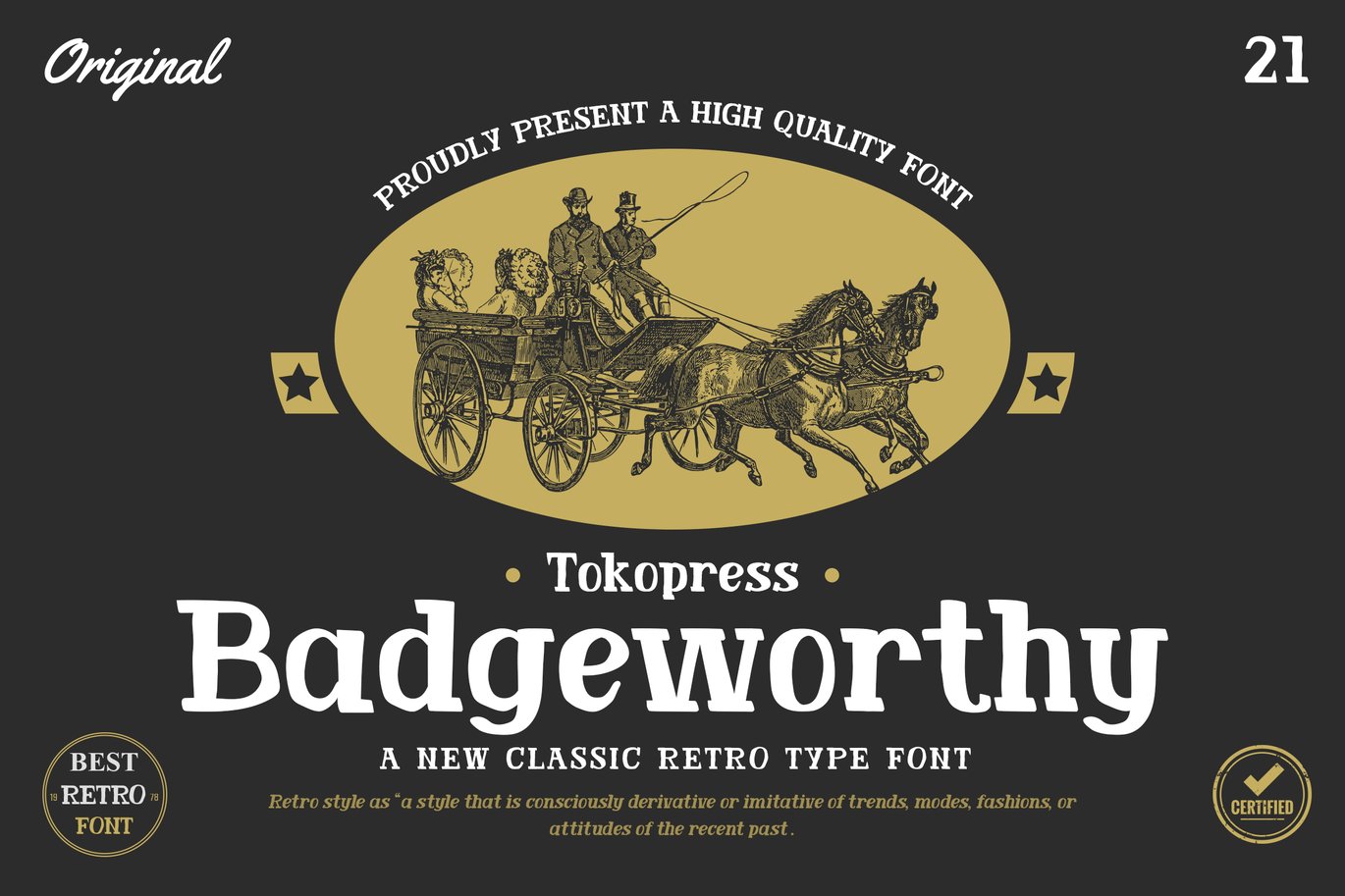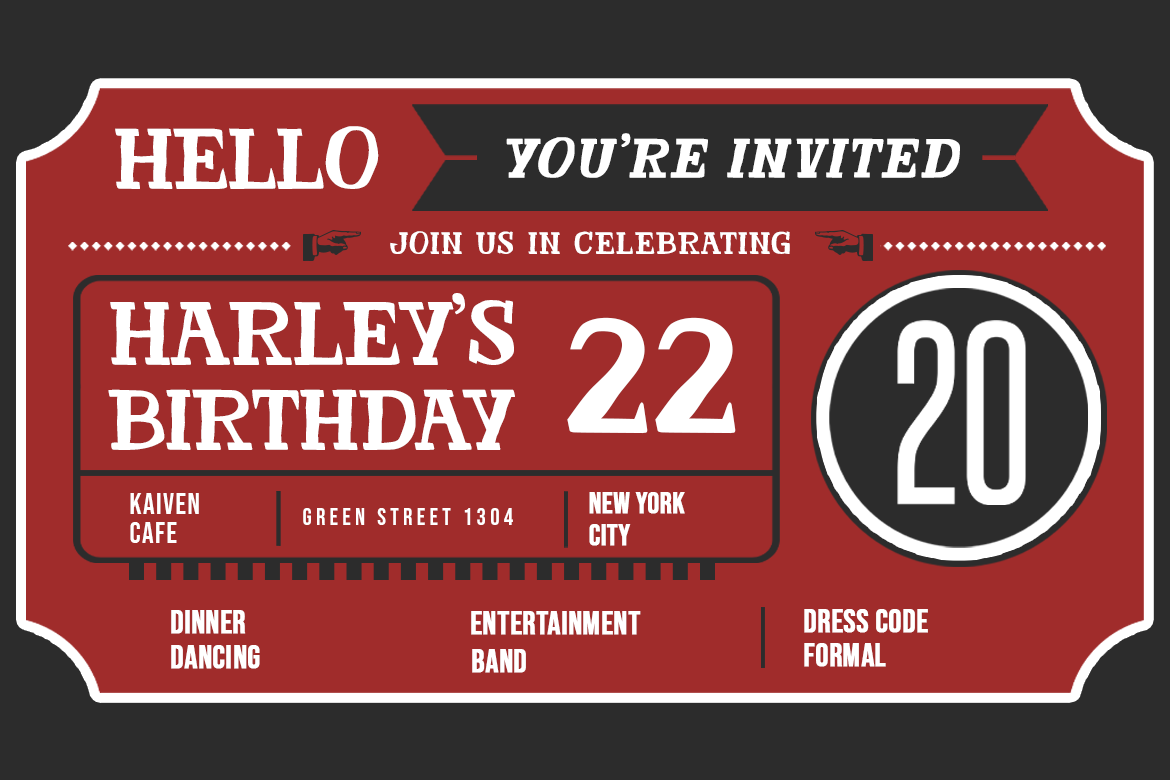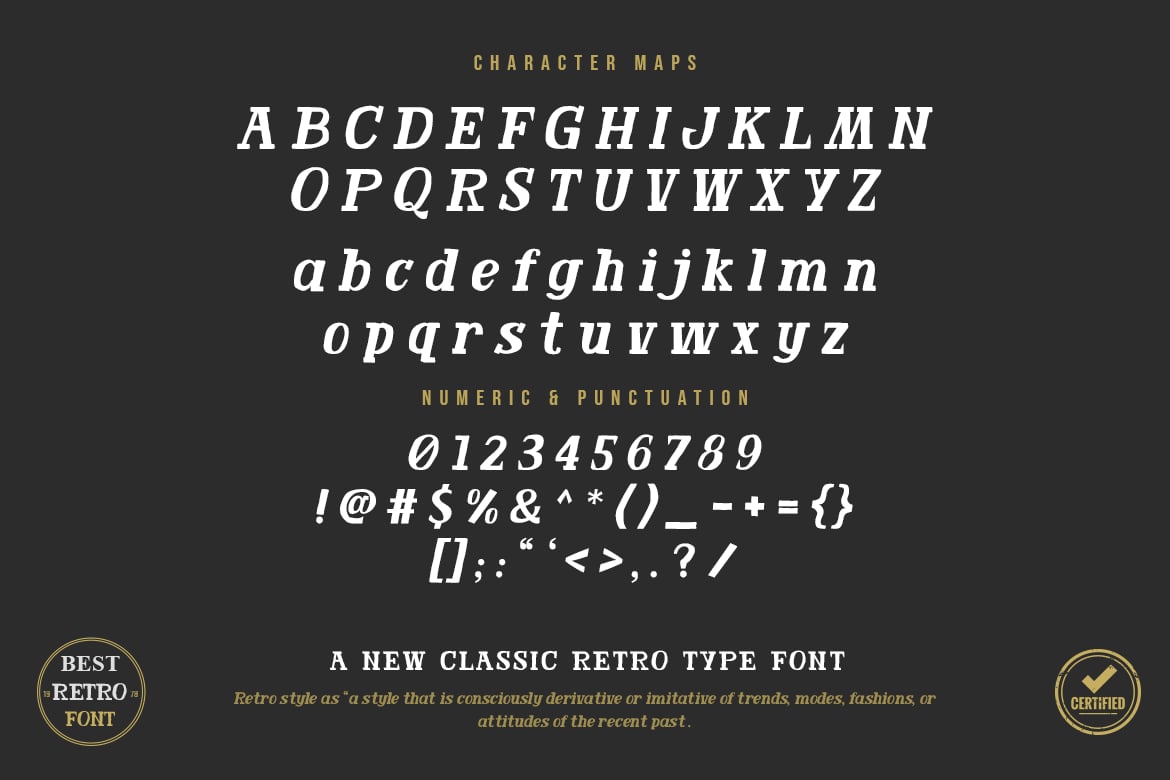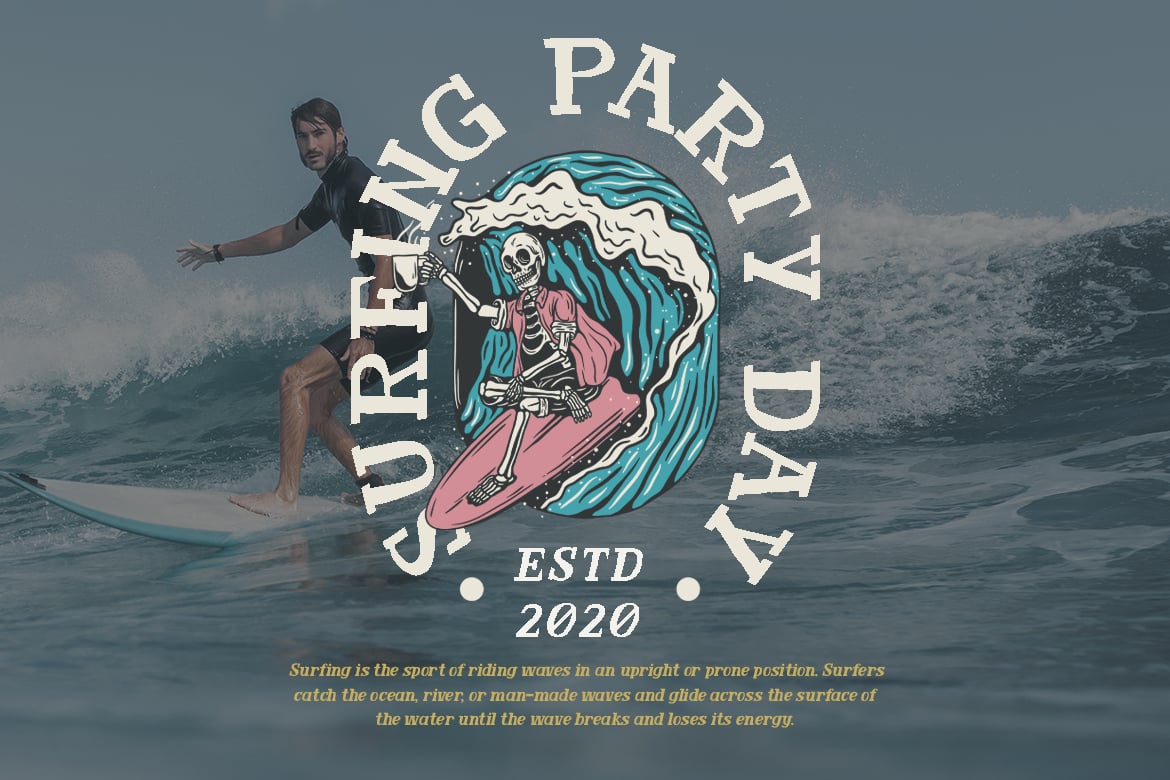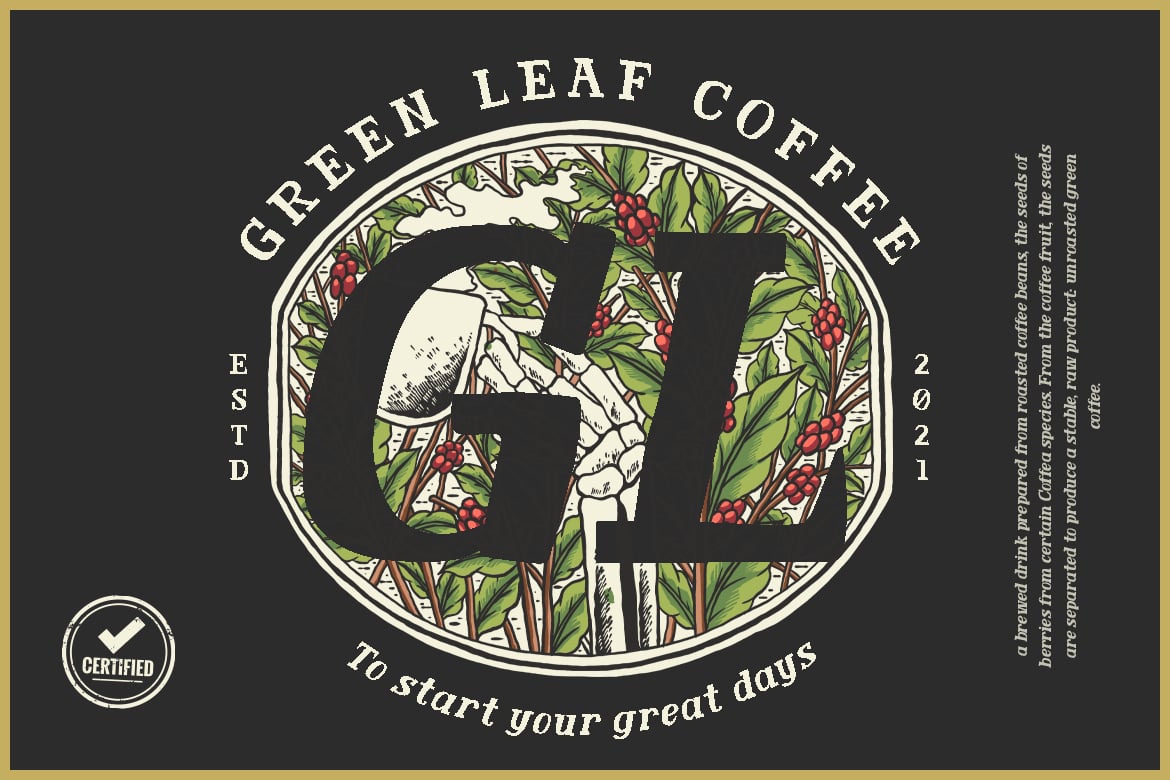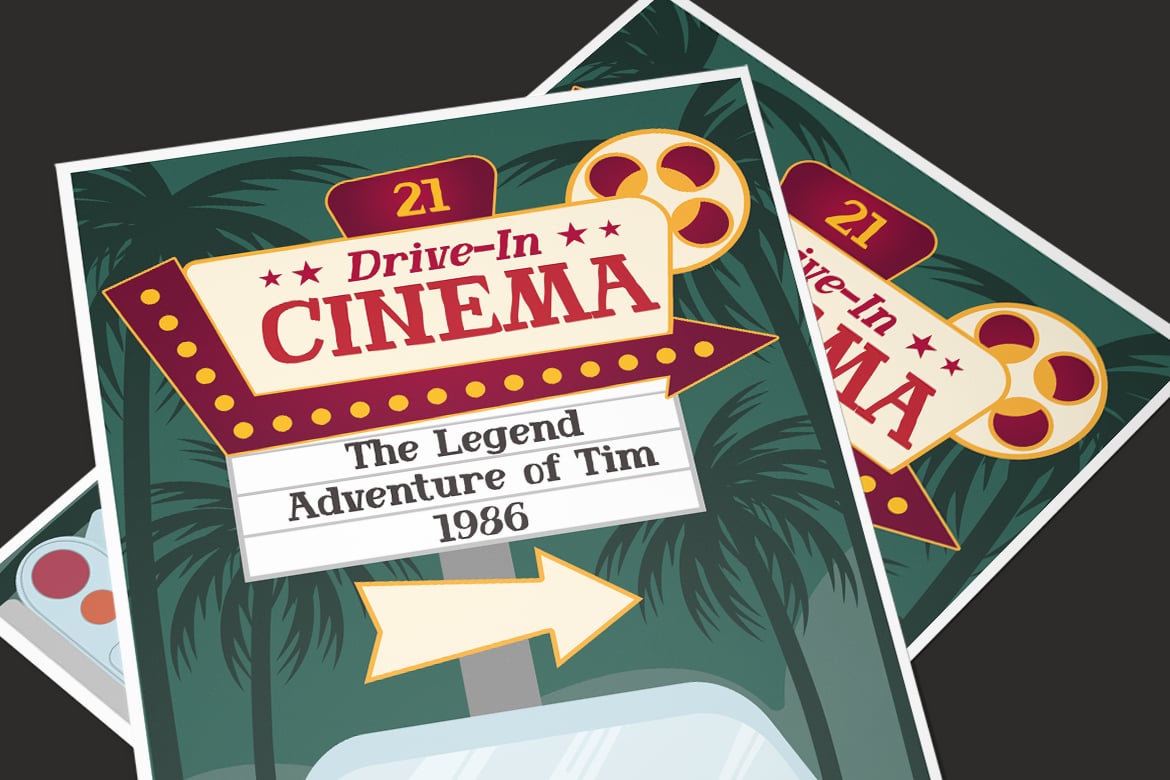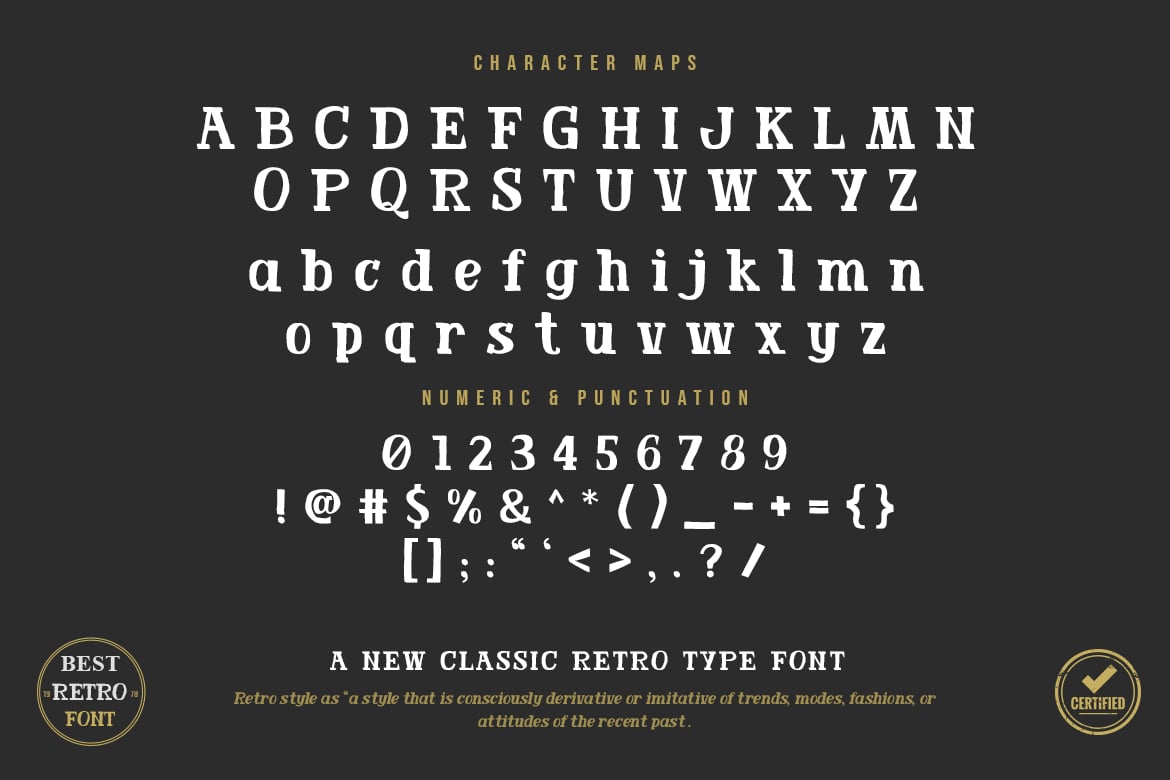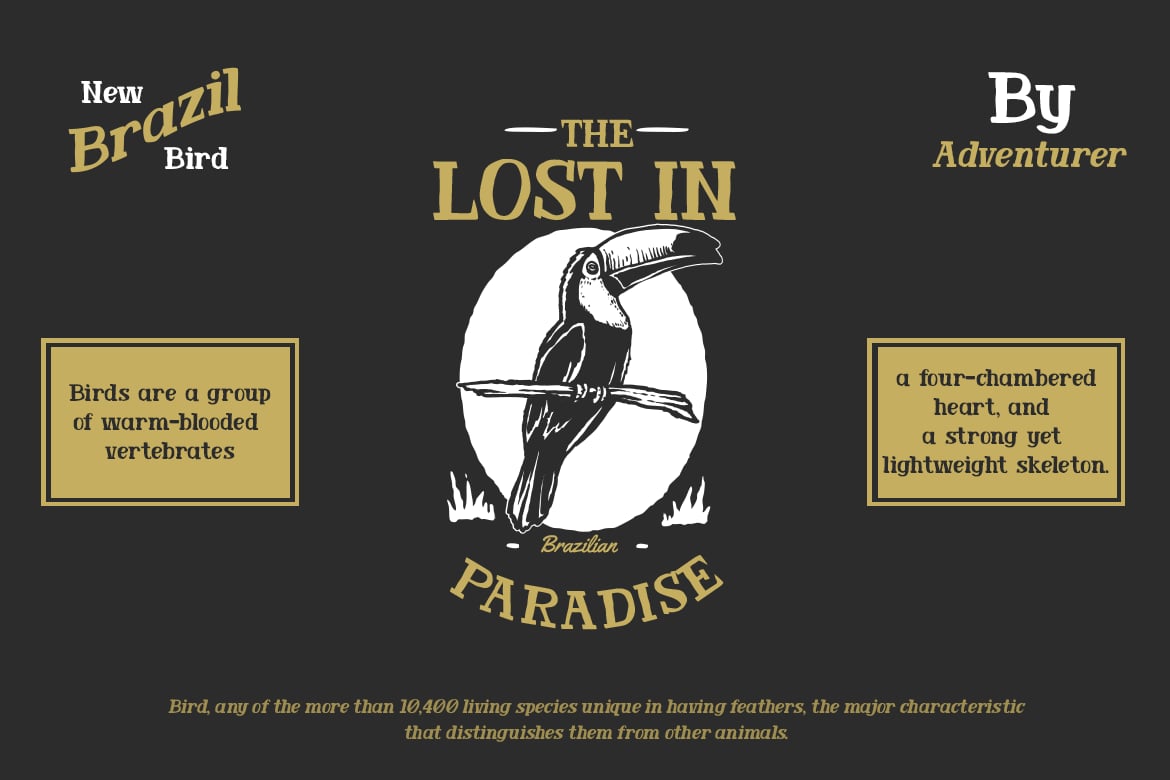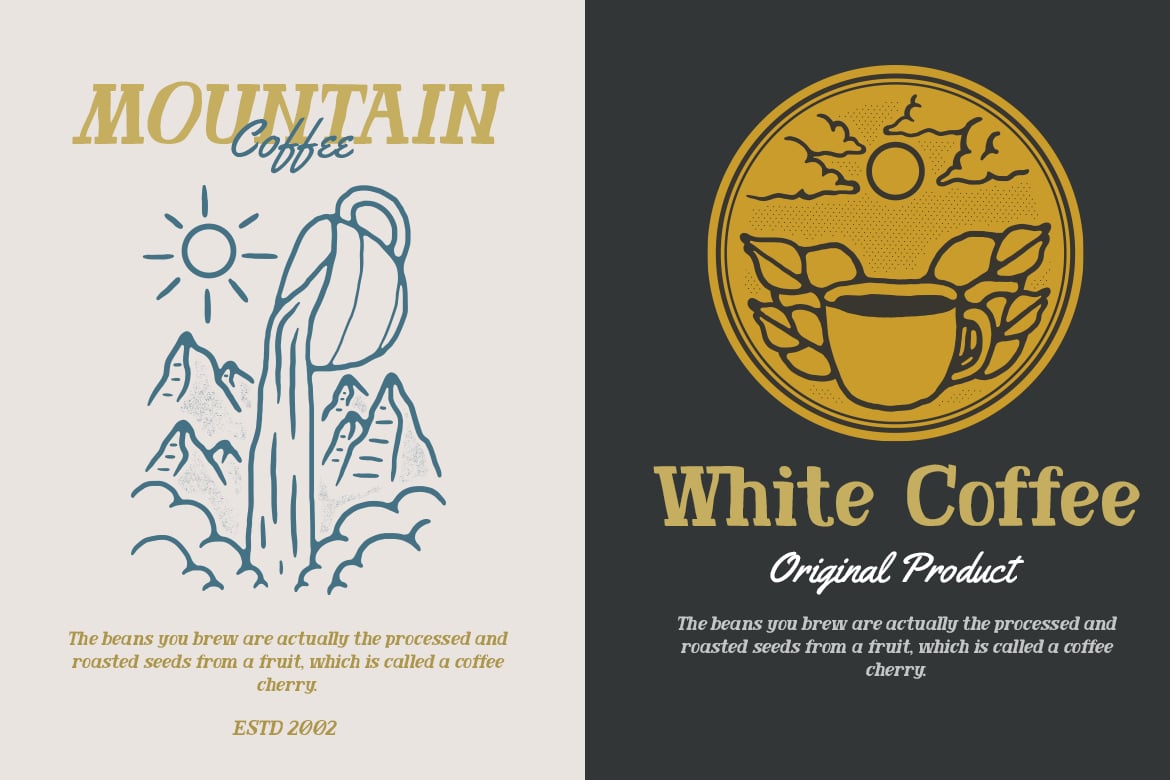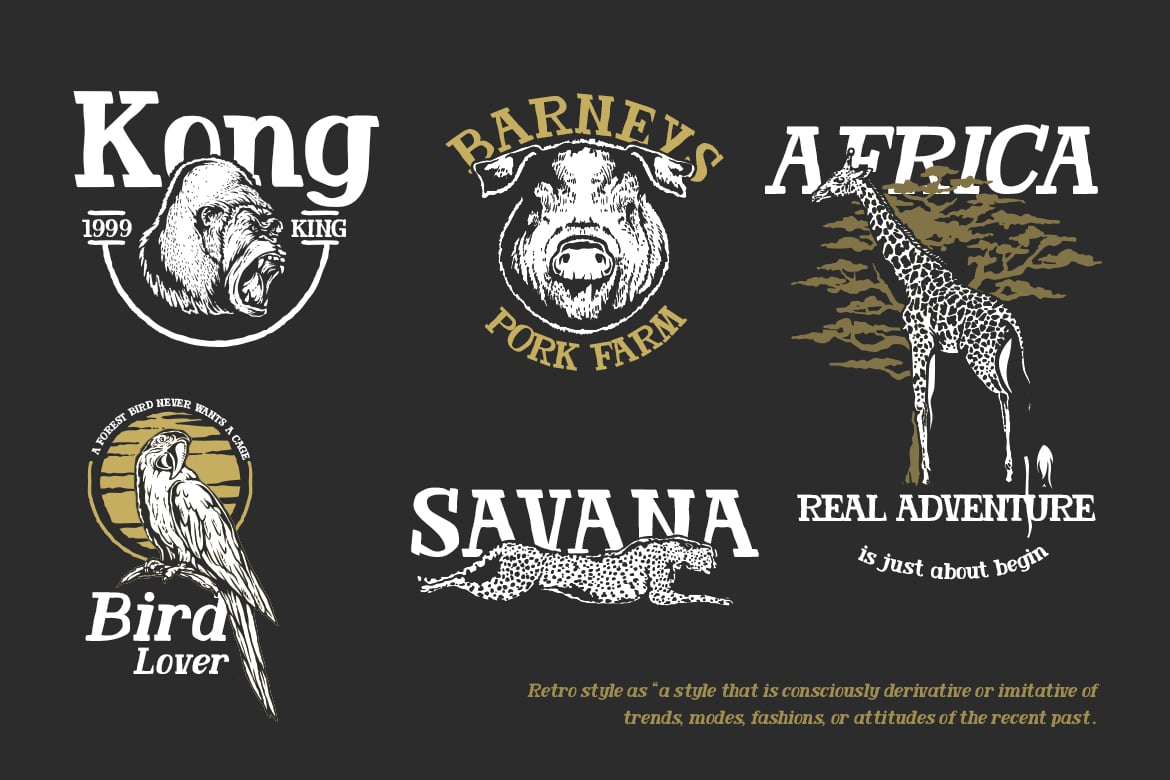
Badgeworthy – Retro Font
Badgworthy – Retro font
It’s classic, vintage and also feels like it was stand through times with the irregular lines. Compared to the boring straight computerized look of other serif font, Badgeworthy is proofing that it is worthed to be word as a badge.
Suit perfectly for retro segmented magazine, poster, movie title, music poster, youtube covers, youtube thumbnails, social media page covers and so on…